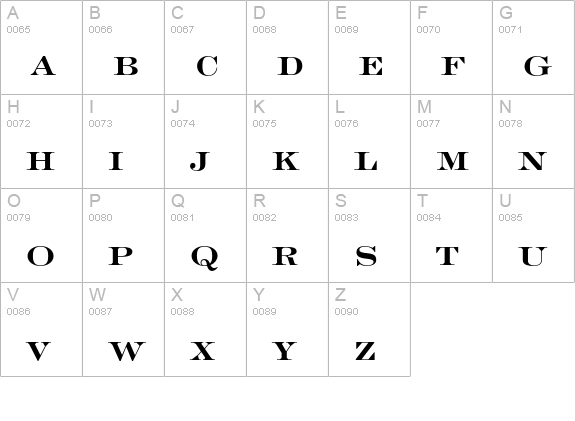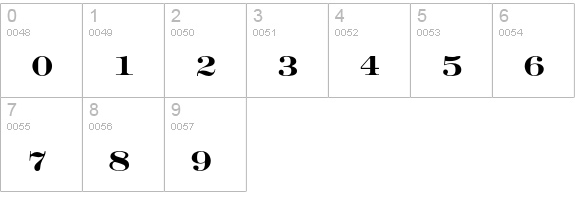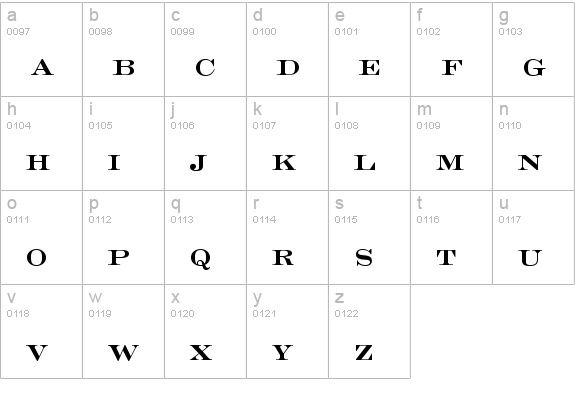
Engravers LH Bold Face is a strong, high-contrast variant in the Engravers typeface family \xE2\x80\x94 well suited to headlines, attention-grabbing titles, and strong calls-to-action.
Engravers LH Bold Face font exudes strength, elegance, and timeless appeal with its bold and distinctive letterforms. This classic font is perfect for conveying a sense of sophistication and professionalism in any design project. The thick strokes and clean lines of Engravers LH Bold Face make it ideal for headlines, logos, and other prominent text elements. Best of all, Engravers LH Bold Face is available for free download at FontsMarket.com. Whether you're working on a print or digital project, this versatile font will add a touch of refinement and style. Don't miss the opportunity to enhance your design with the bold and impactful Engravers LH Bold Face font, now available for free at FontsMarket.com.